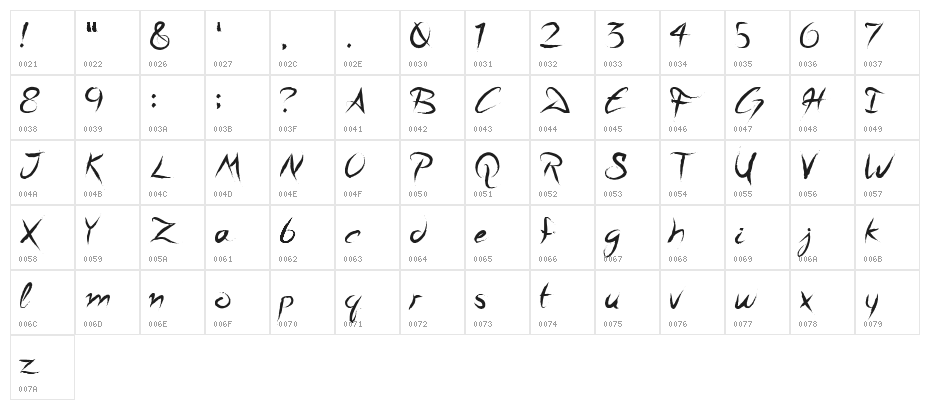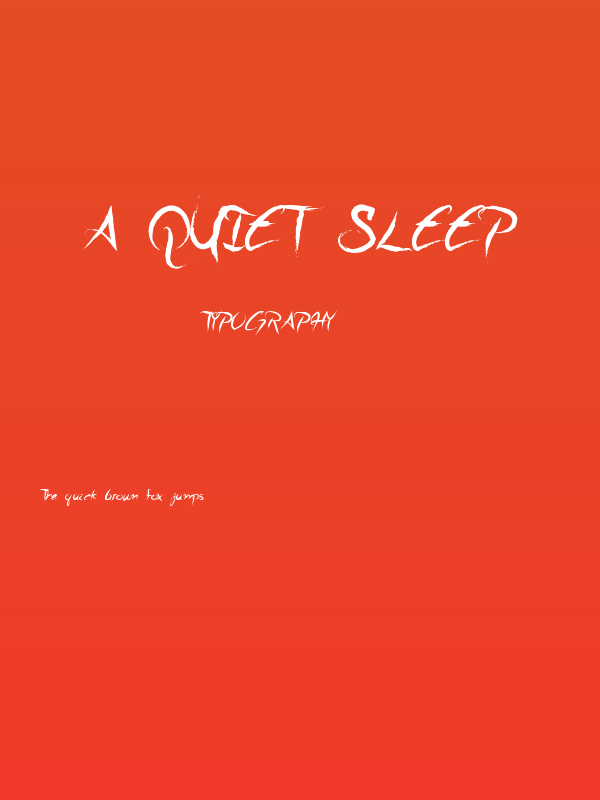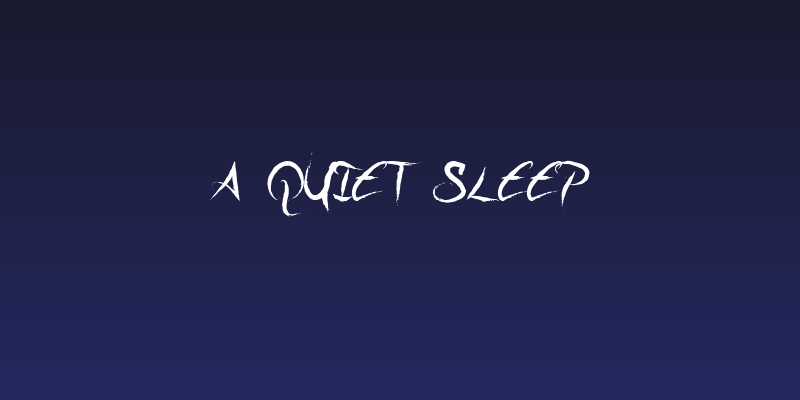
A Quiet Sleep Font
A Quiet Sleep Description
This font features a dynamic and expressive style, characterized by its brush-like strokes and fluid motion. The uppercase letters exhibit sharp, angular forms with a sense of movement, while the lowercase letters maintain a consistent flow, enhancing the handwritten aesthetic. The numerals are bold and prominent, with a slightly irregular form that adds to the overall artistic feel. Special characters are integrated seamlessly, maintaining the font's unique style. The overall appearance is both bold and artistic, making it suitable for creative and expressive design projects.
| Use Case | Logos, Headlines, Artistic designs |
| Proposed Projects | Ideal for artistic projects, branding, posters, and any design requiring a bold, expressive touch. |